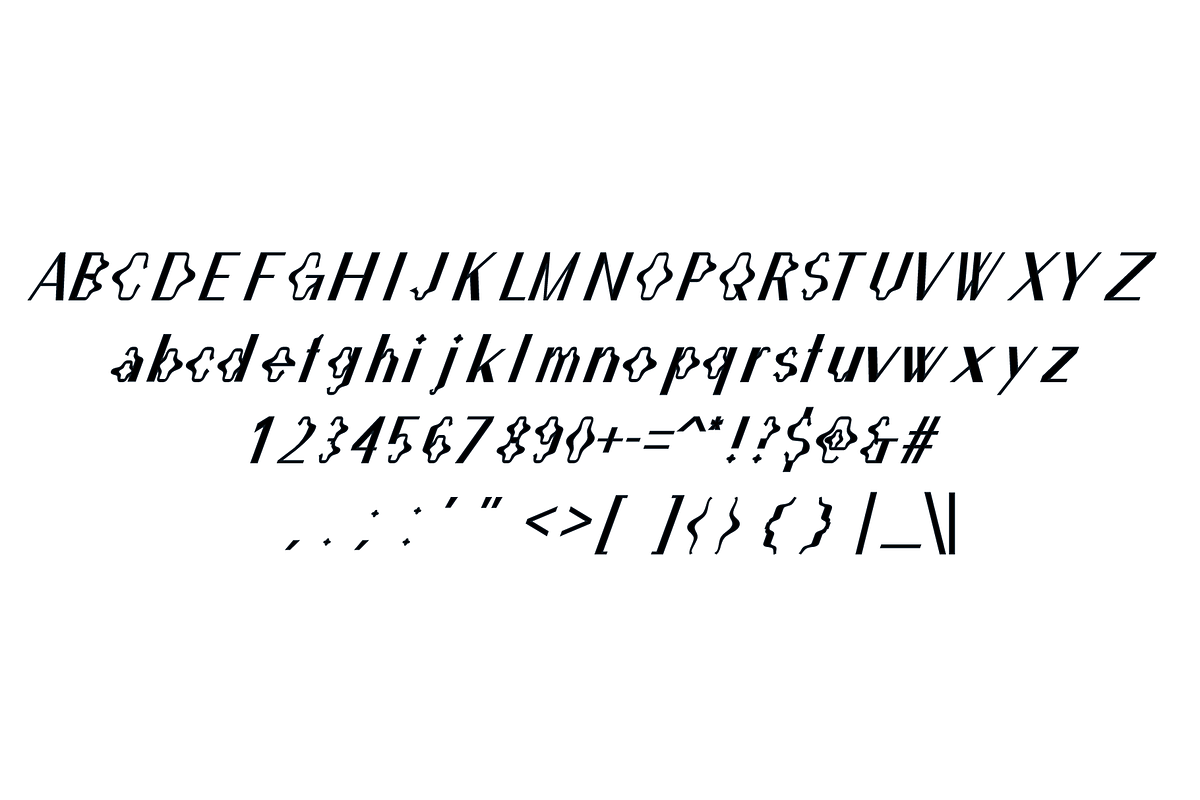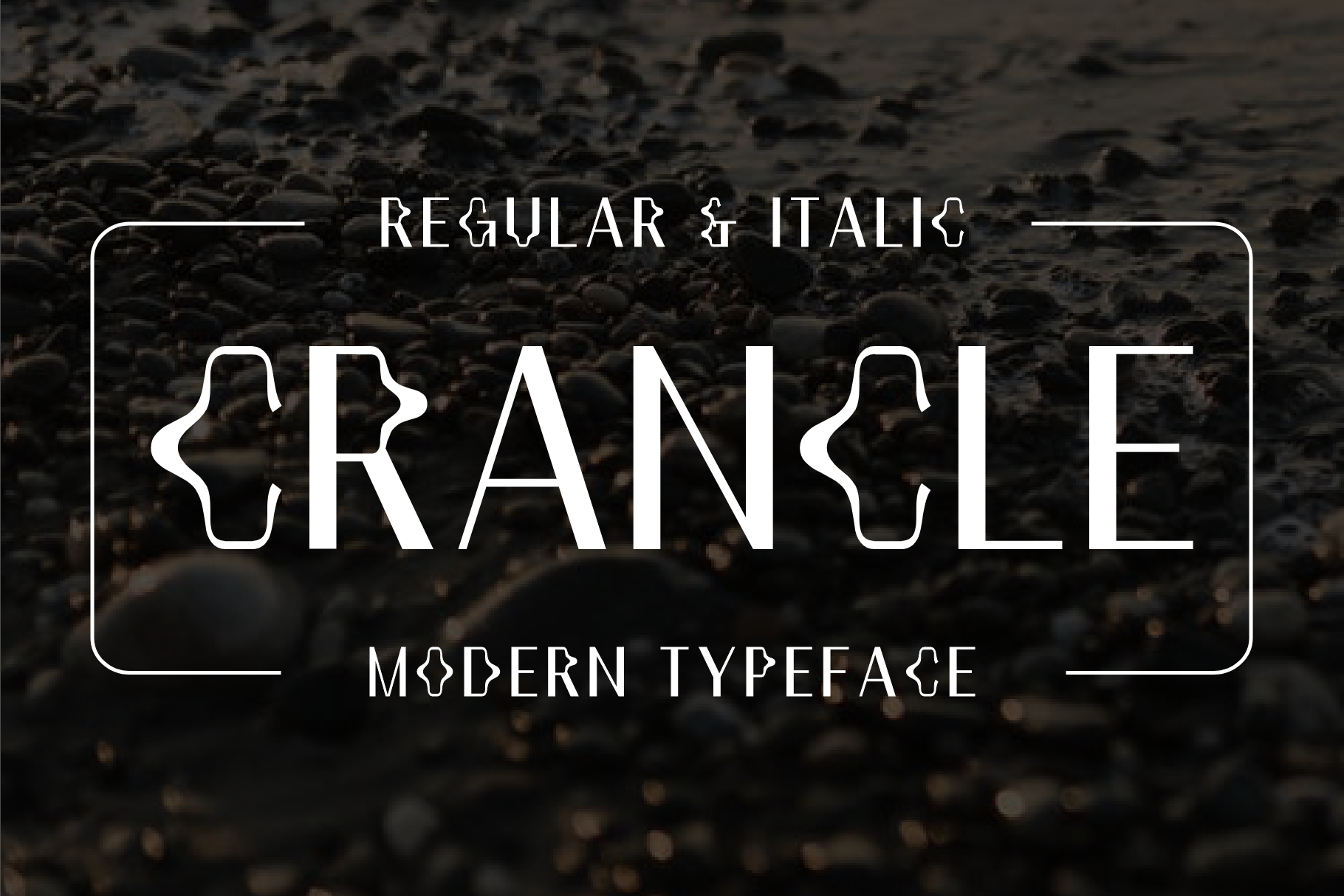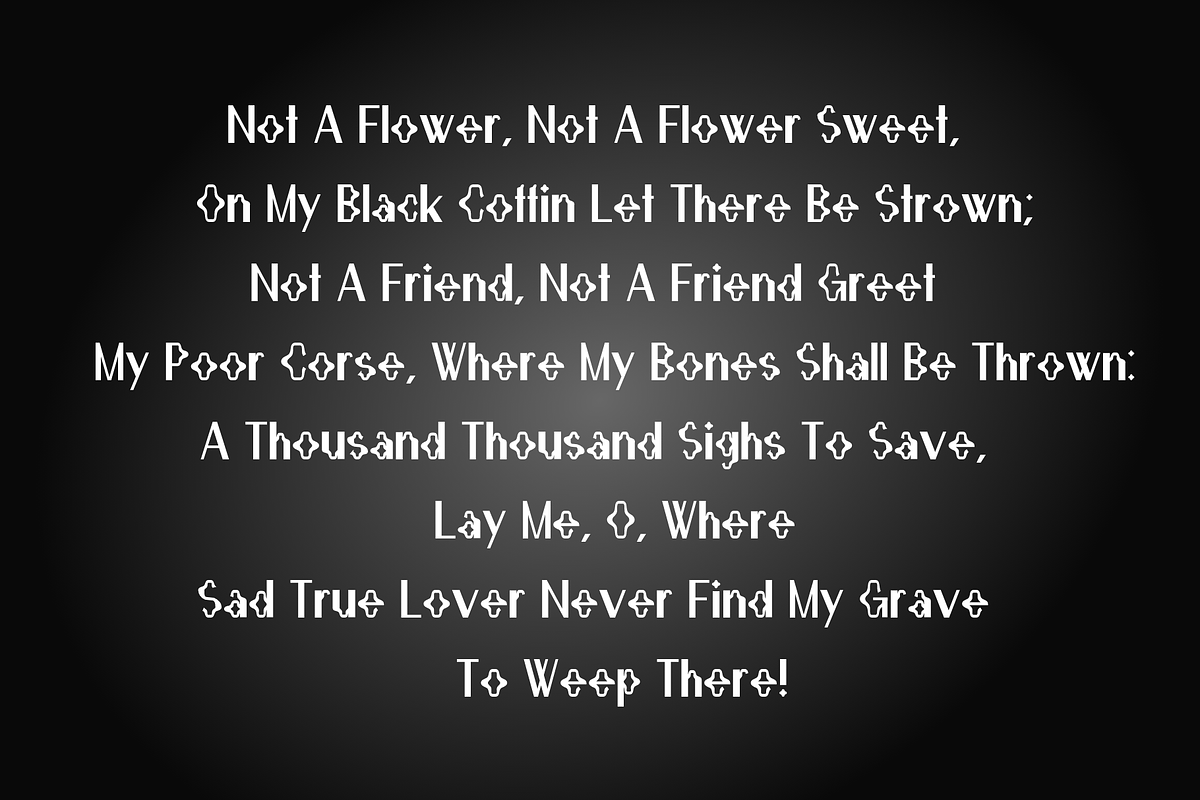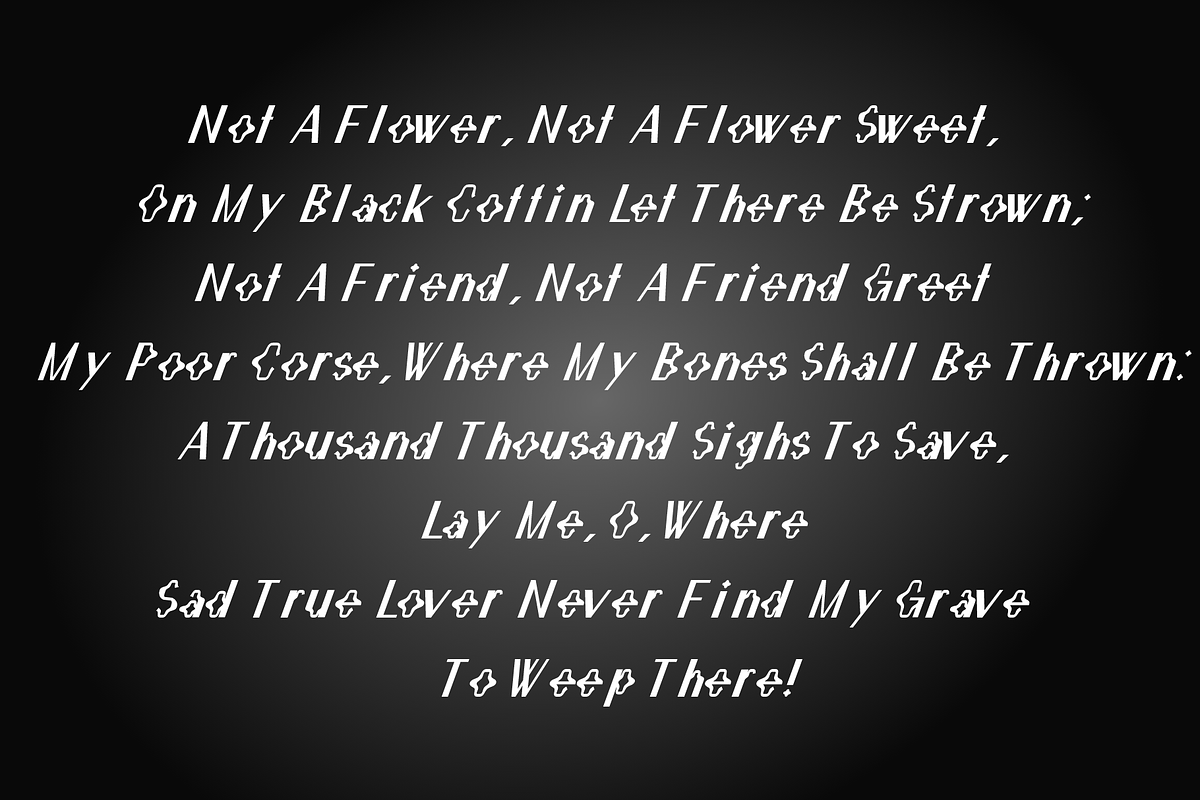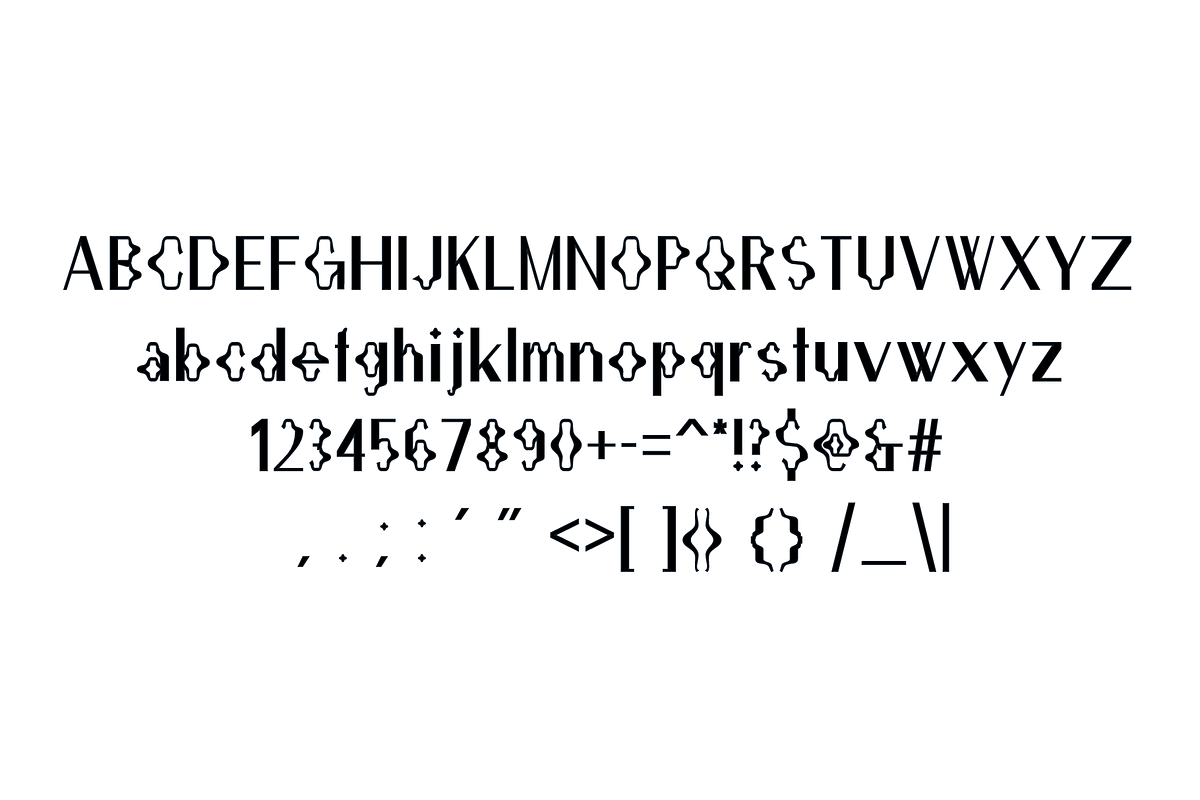
Crancle - Modern Typeface
Crancle - beautifully crafted modern typeface with 2 styles (regular & italic) for your awesome projects.
- Consistency
- Well organized
- Easy to use